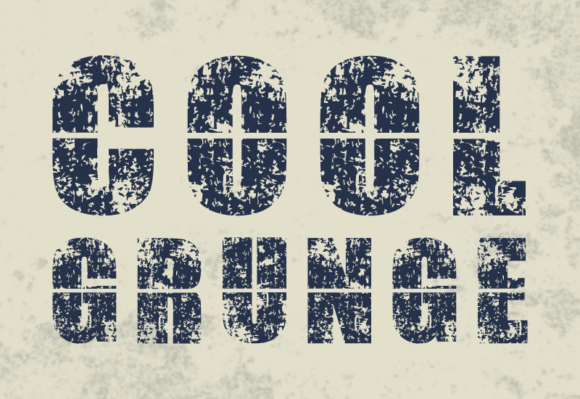
Looking for the perfect font to make your app design stand out? Look no further than Cool Grunge Font, created by GraphicsNinja. This unique sans-serif font is a real statement-maker, with its edgy and raw design that is sure to catch the eye of anyone who sees it.
Cool Grunge Font is perfect for anything that demands a touch of boldness and individuality. Its rough lines and distressed texture create a sense of grit and rebellion, making it ideal for posters, album covers, and even streetwear branding. Whether you're looking to create a striking visual identity for your brand or just want to add a touch of attitude to your designs, this font has everything you need.
But Cool Grunge Font isn't just about looks. It's also packed with features that make it the perfect choice for app design. With its clear and easy-to-read lettering, it ensures that your message comes across loud and clear. And with its bold and distinctive style, it helps your app stand out from the crowd and grab users' attention.